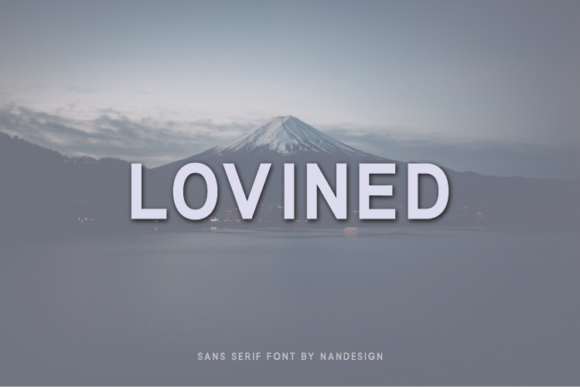
Lovin' Lovined: The Ultimate Sans Serif for Memes and More!
Introducing Lovined, the minimal and neat sans serif font that's taking the internet by storm! This modern masterpiece is designed to make your memes, social media posts, and creative projects pop with personality.
With its clean lines and elegant curves, Lovined is the perfect font for adding a touch of sophistication to even the sassiest of memes. Picture your words dancing across the screen, captivating your audience, and leaving them wanting more. Lovined is the font that turns your memes into legendary works of art, leaving your followers hitting that share button faster than a cheetah on Red Bull.
Embrace the Lovined difference and elevate your creative game. This font is not just for memes; it's a versatile champ that shines in logos, branding, posters, flyers, and anything else your creative heart desires. Its clean and crisp characters ensure effortless readability, even on the smallest screens. So, whether you're creating content for social media, designing a new logo, or simply adding a touch of flair to your presentations, Lovined has got you covered.